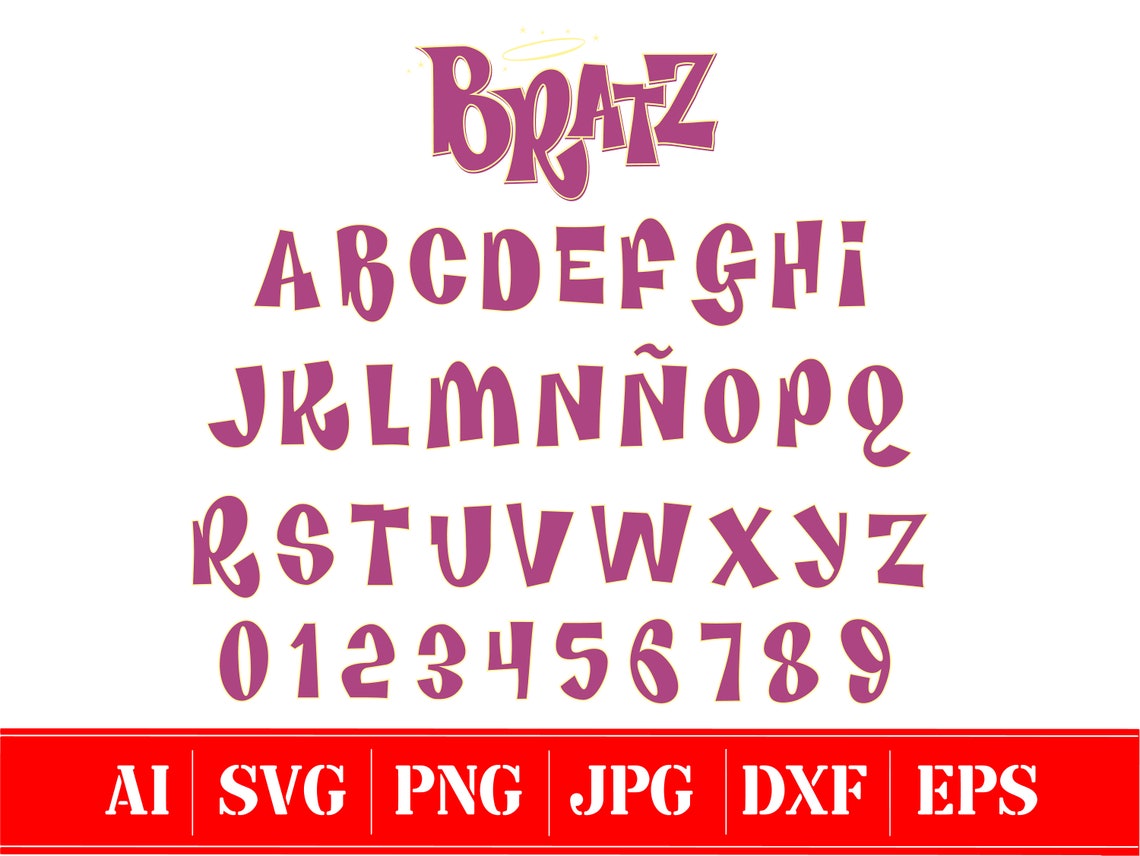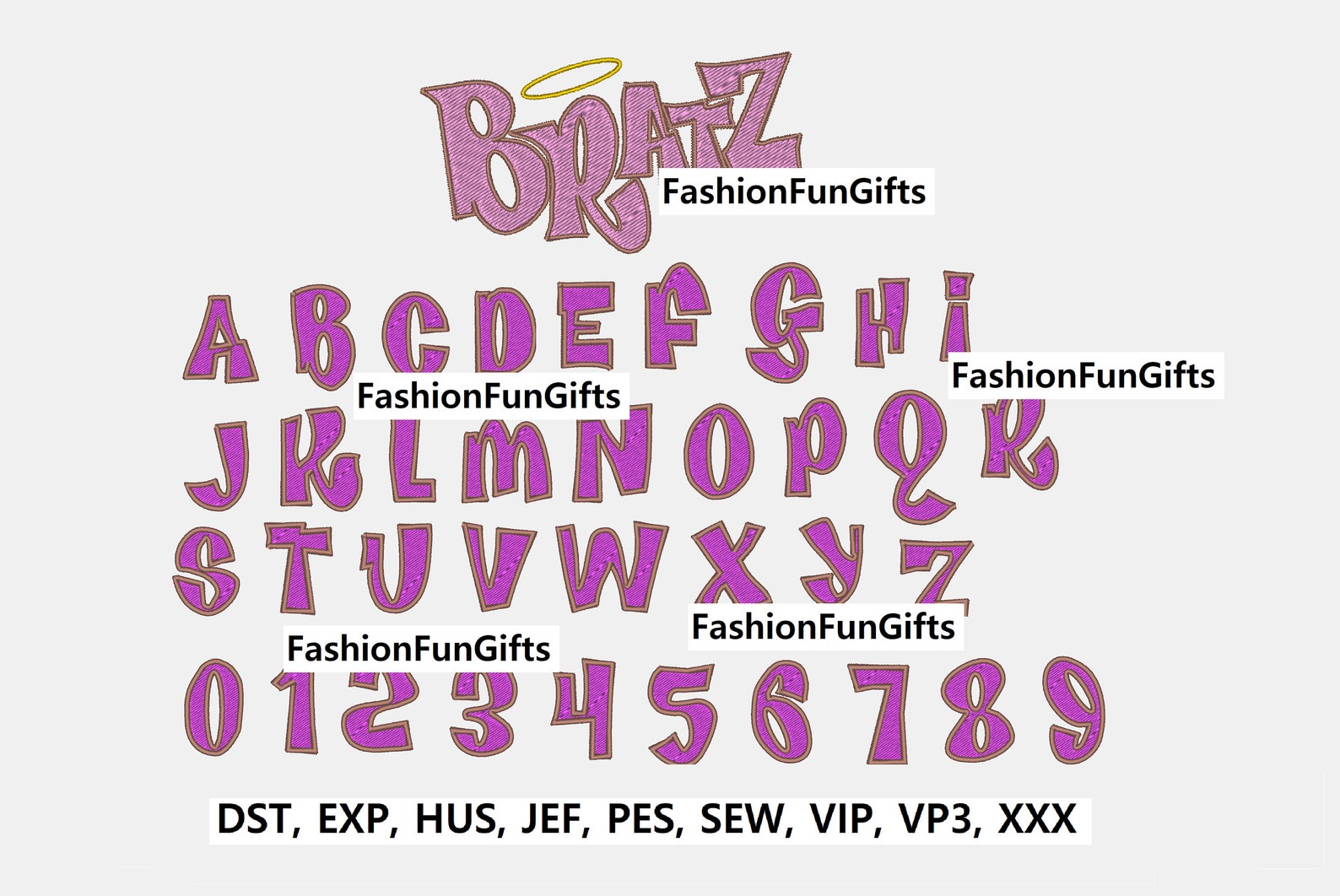
Bratz Doll Font
Bratz Doll Font - With its rounded, irregular lines and thick strokes, the bratz logo font creates a playful yet assertive look that matches the dolls’ modern and urban.